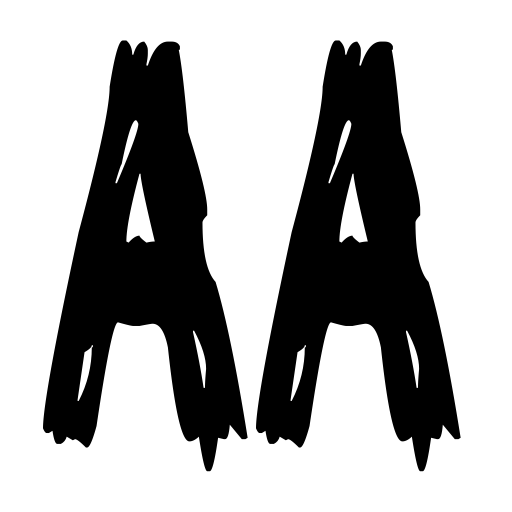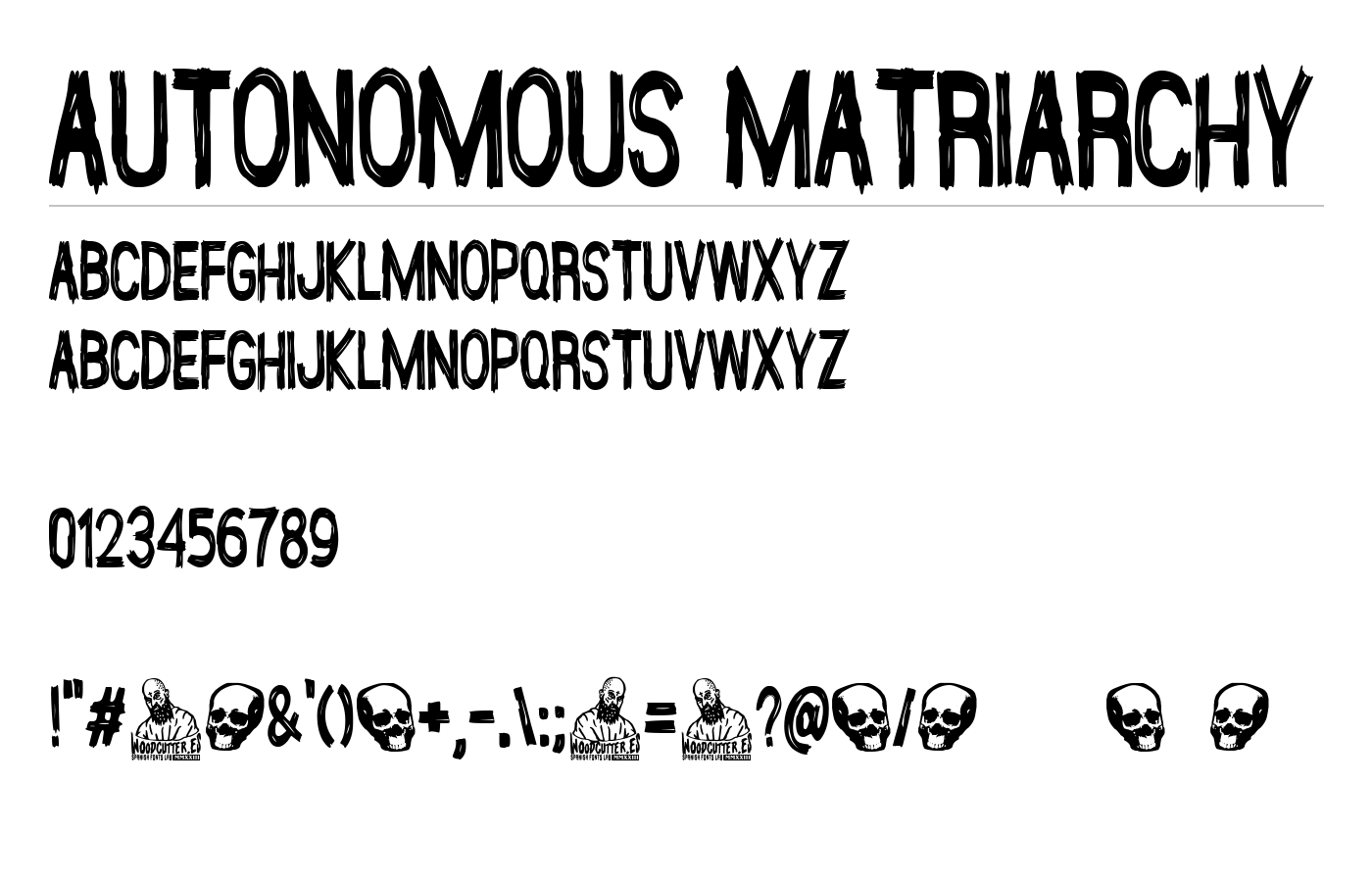
Autonomous Matriarchy is a bold, condensed sans serif font with a rough, hand-drawn texture that gives it a gritty, rebellious feel. Its tall, narrow letterforms with uneven strokes and unique decorative glyphs, including skulls, make it perfect for edgy, alternative designs like posters, music branding, or streetwear logos. This font conveys strong attitude and raw energy, making it an excellent choice for projects seeking a distinctive, urban vibe.
Autonomous Matriarchy Font
About Autonomous Matriarchy Font